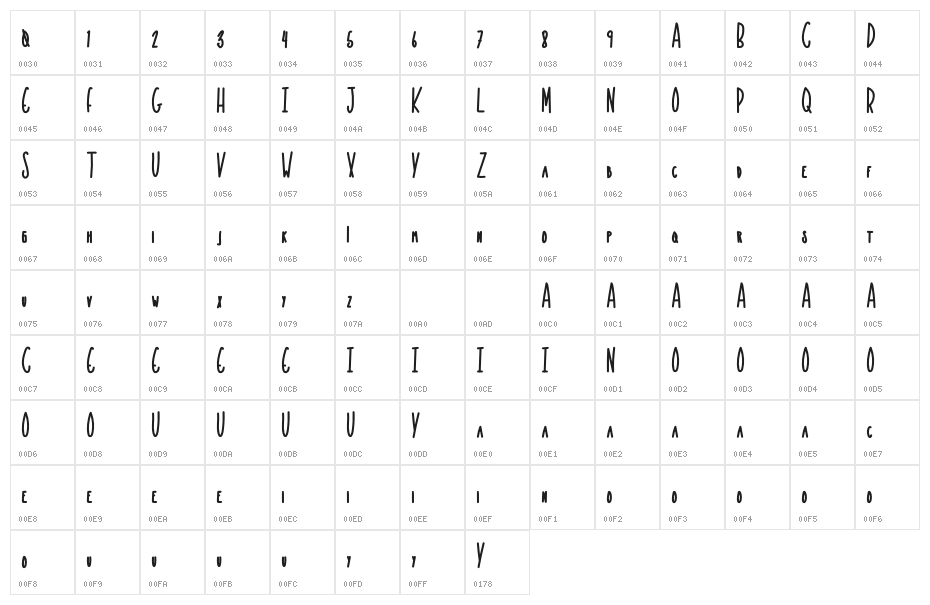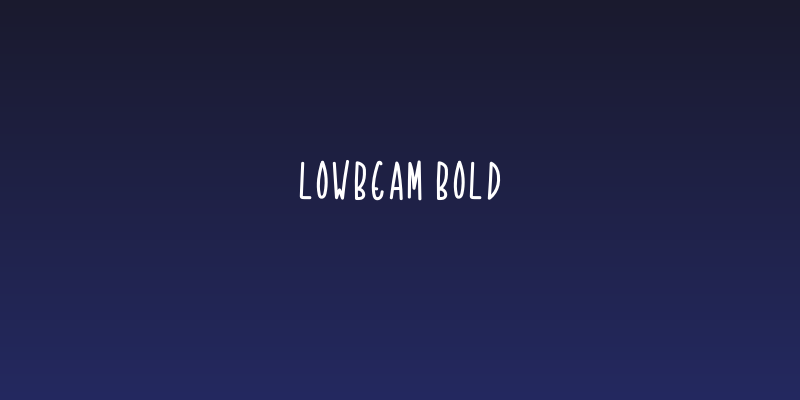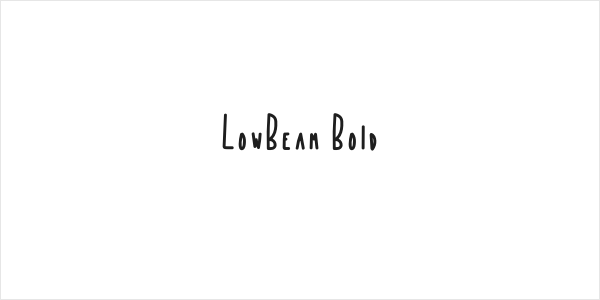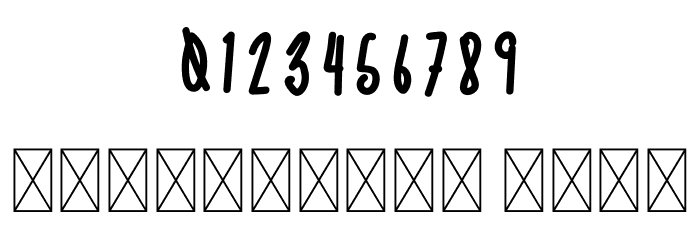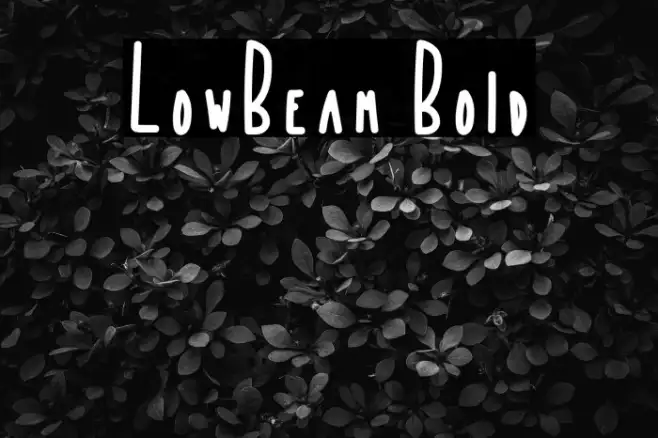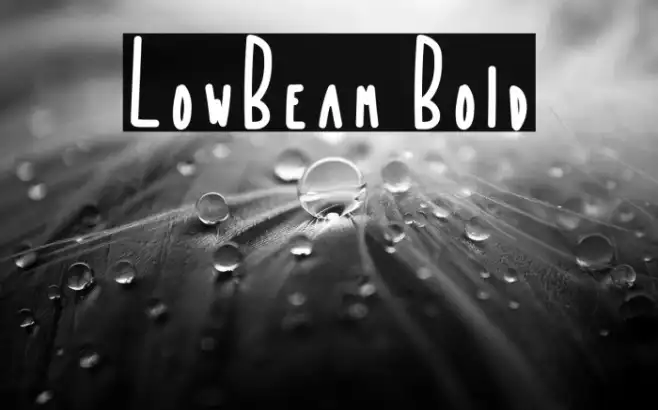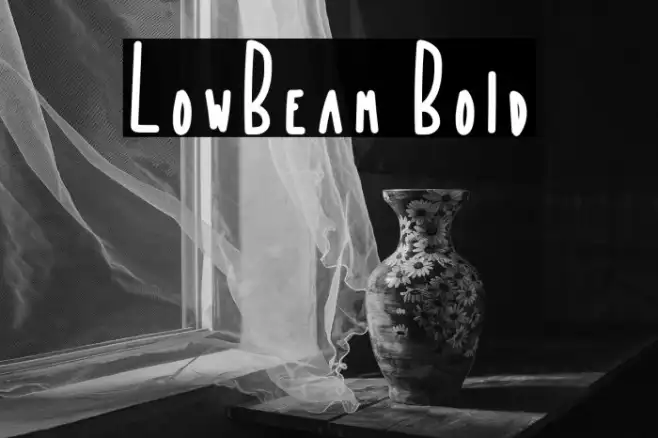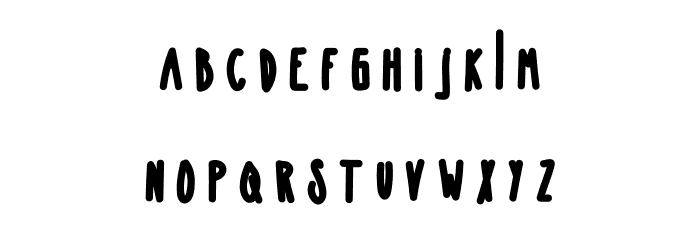
LowBeam Bold Font
LowBeam Bold Description
This font features a playful and bold handwritten style, characterized by its tall, narrow letters and slightly irregular strokes. The uppercase letters are prominent and eye-catching, while the lowercase letters maintain a consistent flow with a casual, friendly appearance. The numerals are distinct and easy to read, complementing the overall style. The font's unique charm is further enhanced by its quirky special characters, which add a touch of whimsy. This font is perfect for projects that require a personal and approachable feel, making it ideal for creative designs.
| Overall Style | Playful, Casual |
| Proposed Projects | Ideal for greeting cards, children's books, playful branding, and creative posters. |